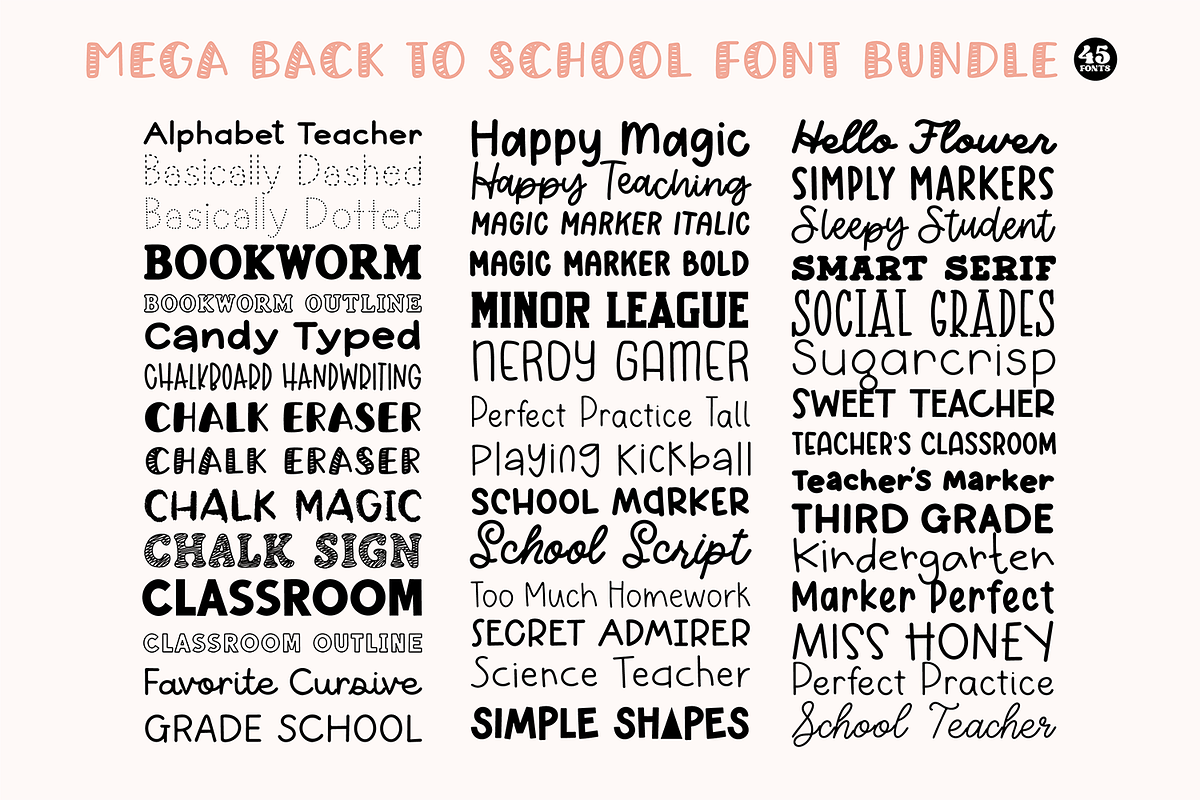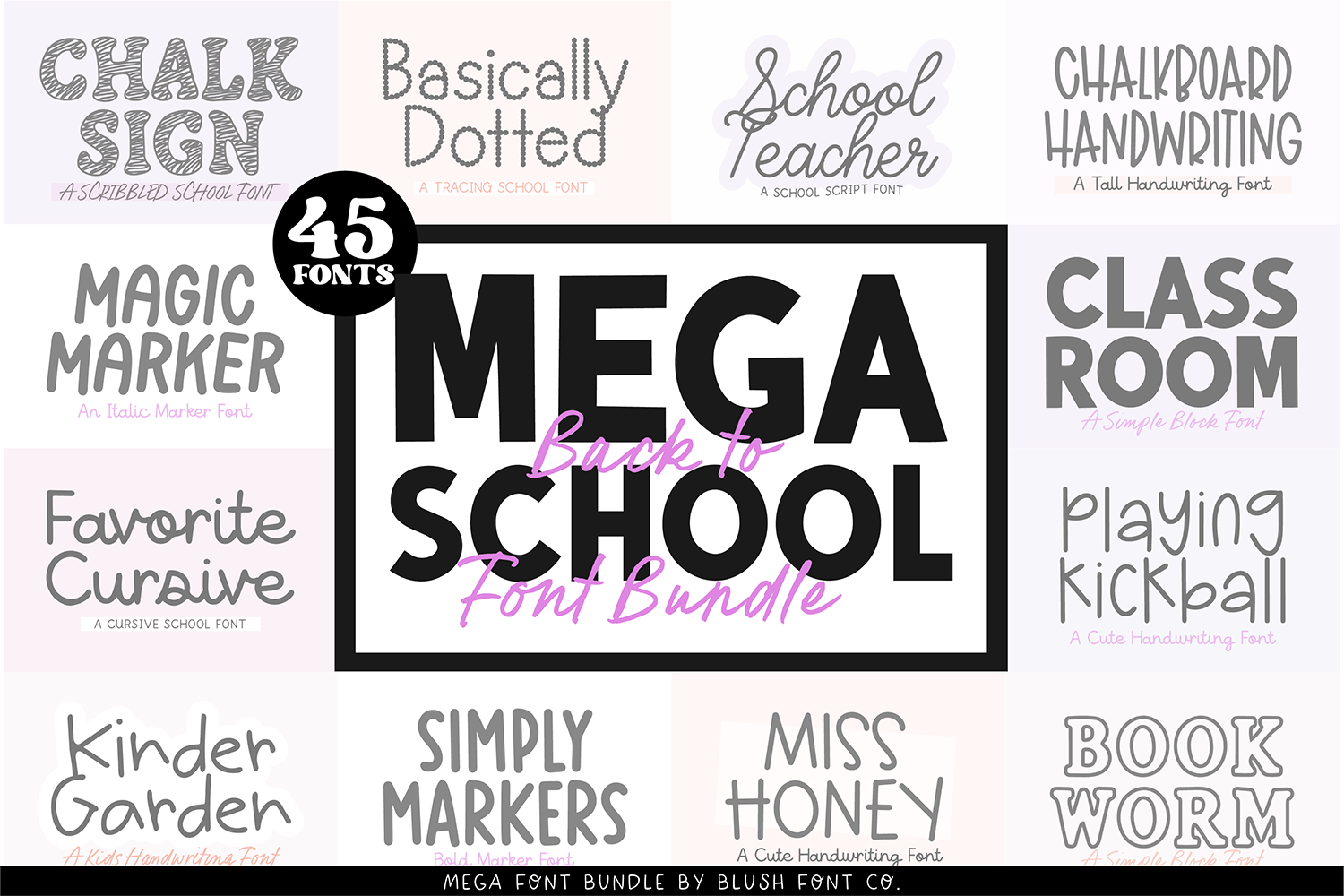
MEGA Back-To-School Font Bundle
MEGA BACK-TO-SCHOOL Font Bundle - 45 School Fonts!!
This font bundle is full of school-themed fonts. Chalk, handwriting, cursive, tracing, block fonts, and more! Perfect for teachers, students, and note-taking. You can use these in Goodnotes!